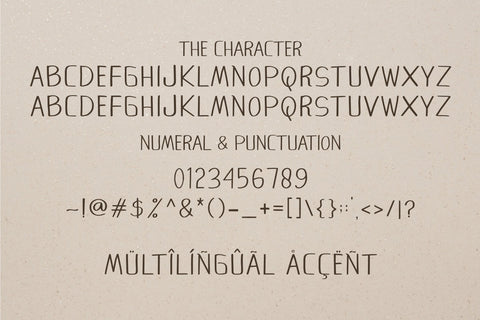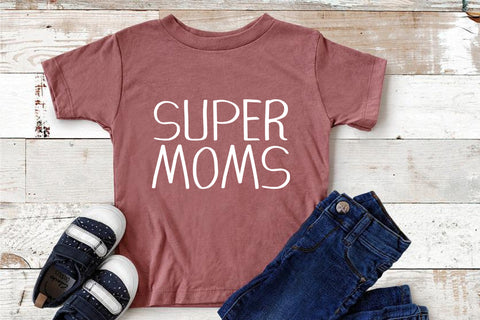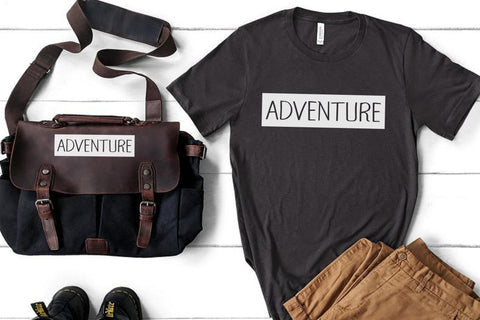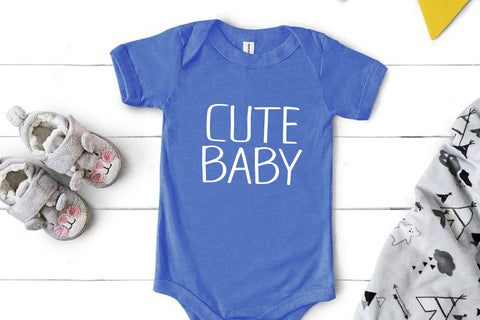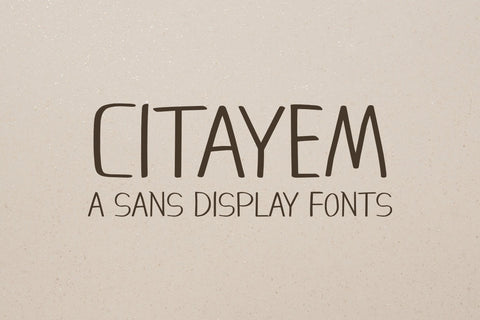
Citayem - Display Font
Citayem is an original handmade display font, this font is suitable for printing such as t-shirts, stickers, labels, posters, Cricut, and many others.